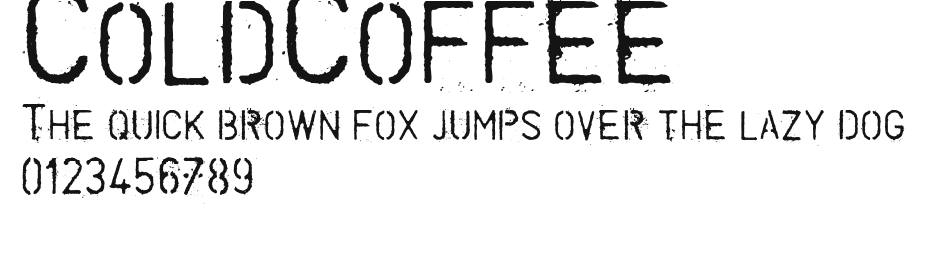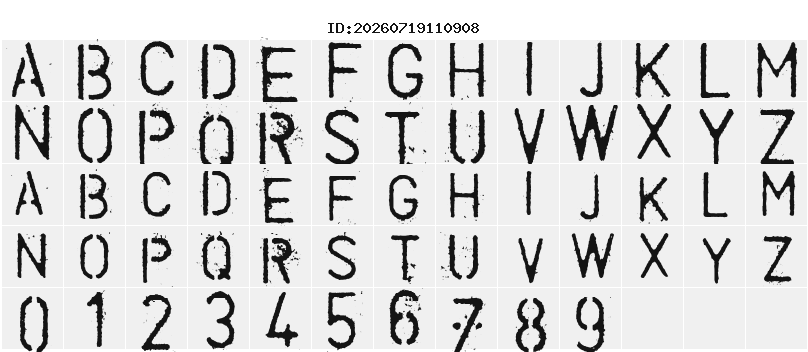
About ColdCoffee.ttf
ColdCoffee.ttf is a modern, elegant sans-serif font designed for ultimate readability and visual harmony. Perfect for branding, headlines, web design, and print materials.